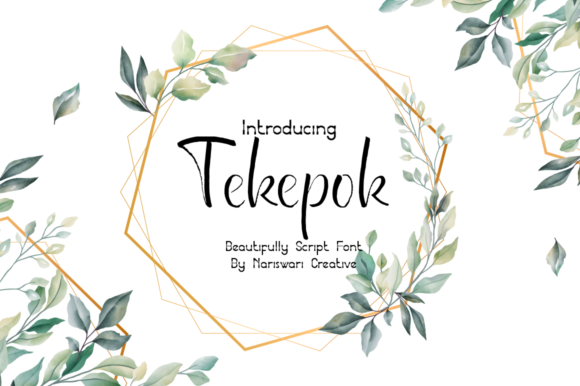
Indulge in the world of Tekepok, a breathtaking script font that will ignite your creativity like never before! Its delicate and graceful strokes emulate the beauty of a gentle breeze, effortlessly adding a touch of elegance to every design. Each character has been lovingly crafted to achieve perfect harmony, ensuring a seamless fit in a myriad of projects. Whether you're a seasoned designer or embarking on your creative journey, Tekepok's versatility will captivate your imagination. Its enchanting flow will transform your words into captivating works of art, drawing attention and admiration wherever they appear.
Embrace the power of Tekepok and witness your creative visions soar to new heights. Its delicate curves will add a touch of sophistication to your invitations, while its elegant lines will bring a sense of timeless beauty to your posters. Unleash your imagination and let Tekepok guide you through a world of endless possibilities. Experience the joy of creating stunning designs that evoke emotions and leave a lasting impression. With Tekepok by your side, your creative journey will be filled with inspiration, delight, and endless possibilities. Don't let this extraordinary font pass you by. Dive into the world of Tekepok today and let your creativity flourish!